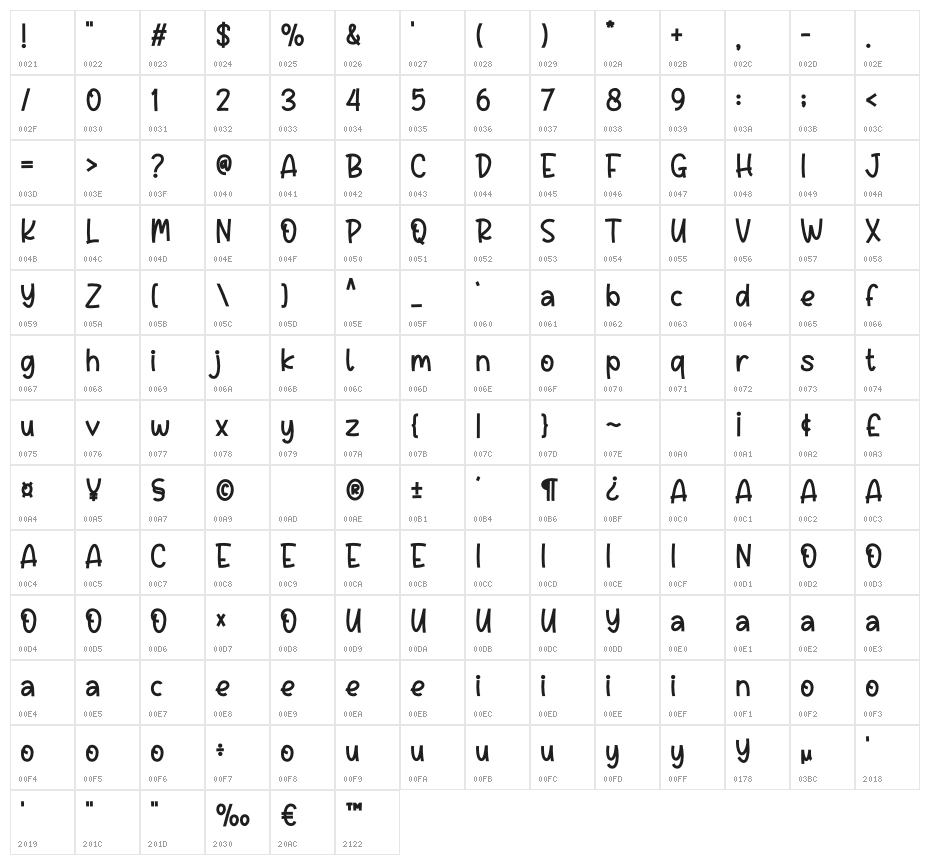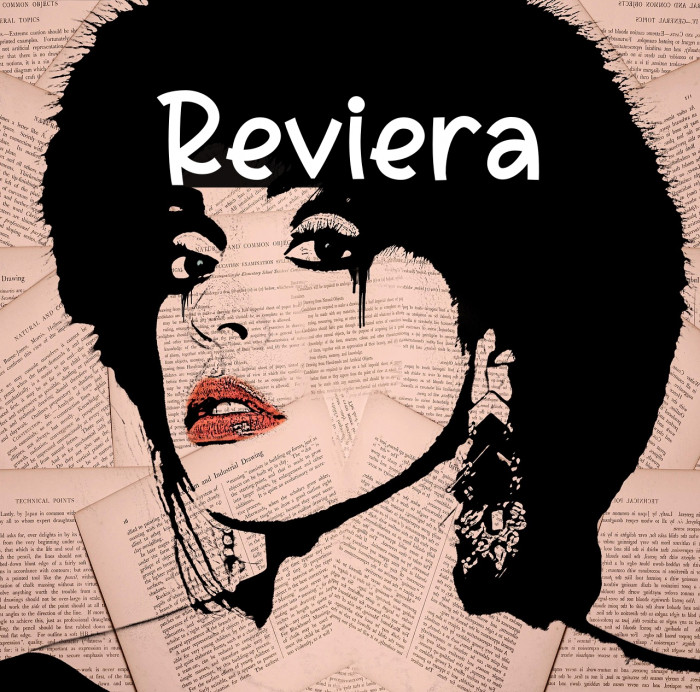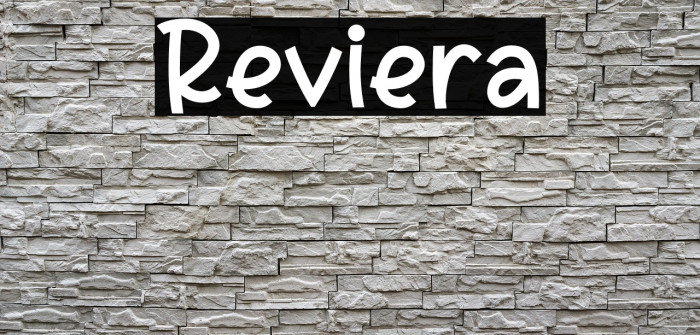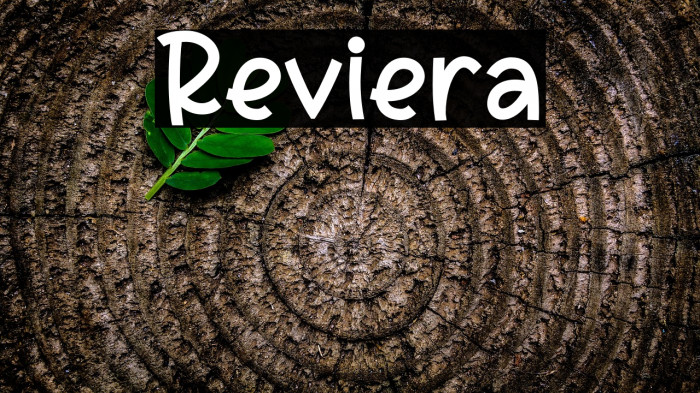
Reviera Font
Reviera Description
A playful and casual handwritten font with a friendly appearance, featuring rounded edges and a slightly irregular baseline.
| Overall Style | Casual |
| Use Case | Logos, Headlines |
| Proposed Projects | Greeting cards, children's books, casual branding. |